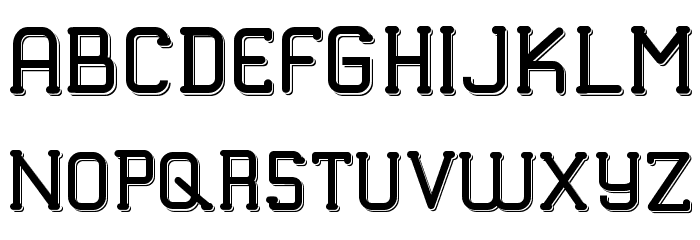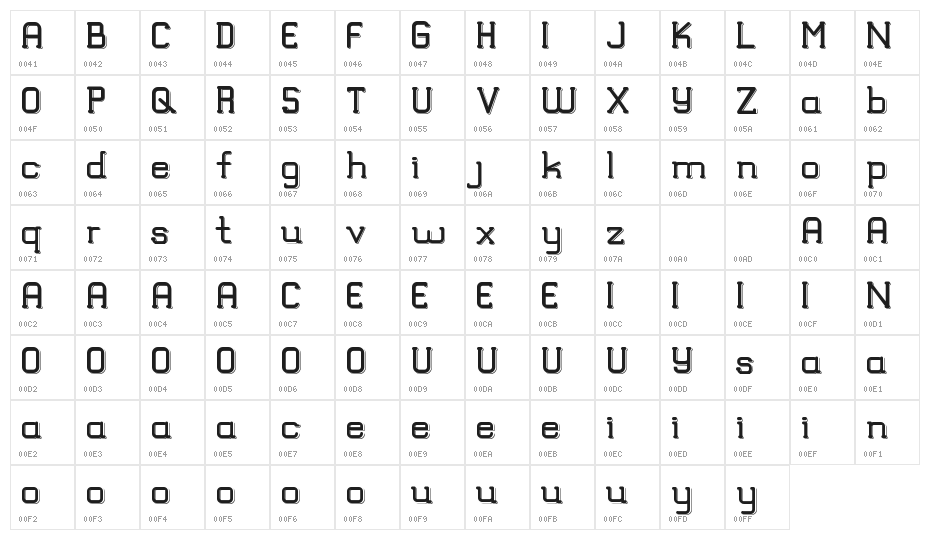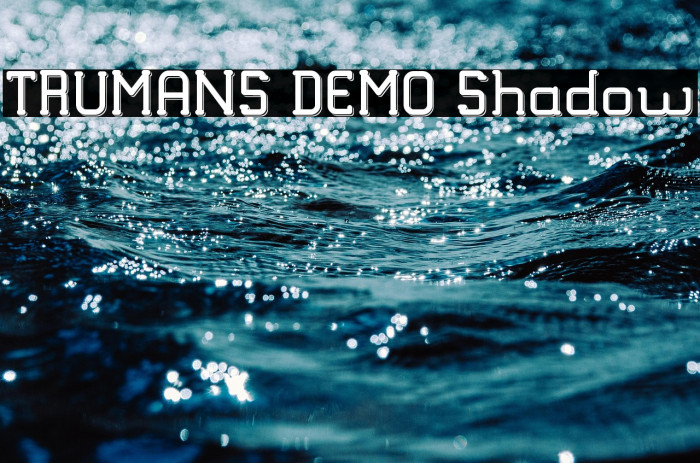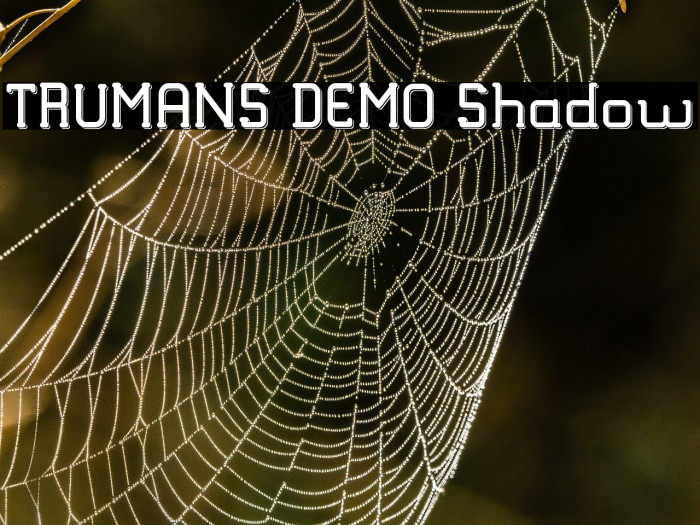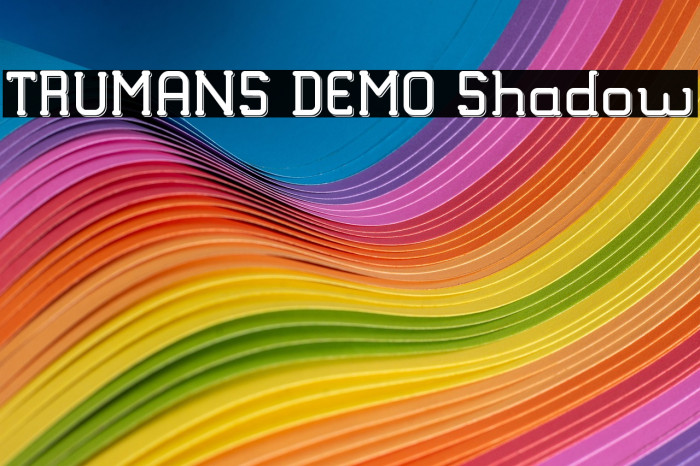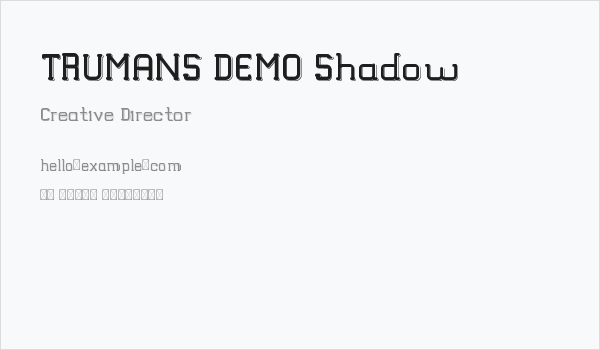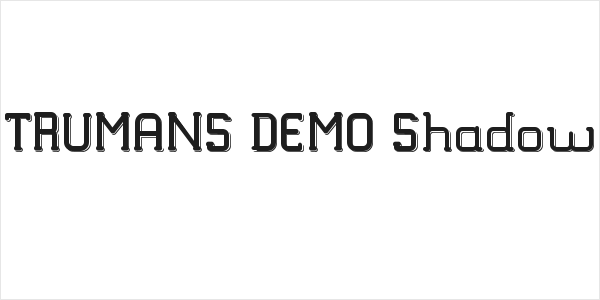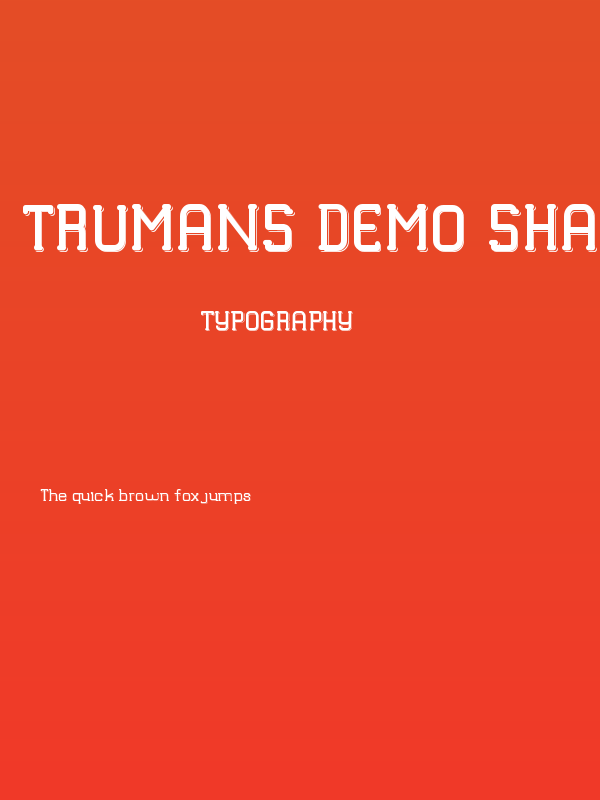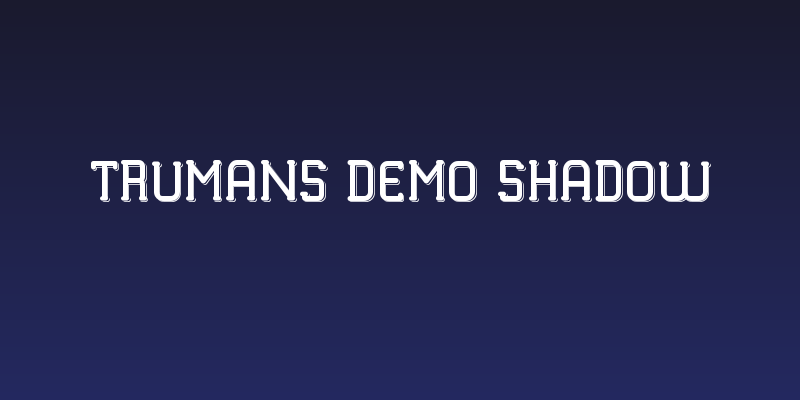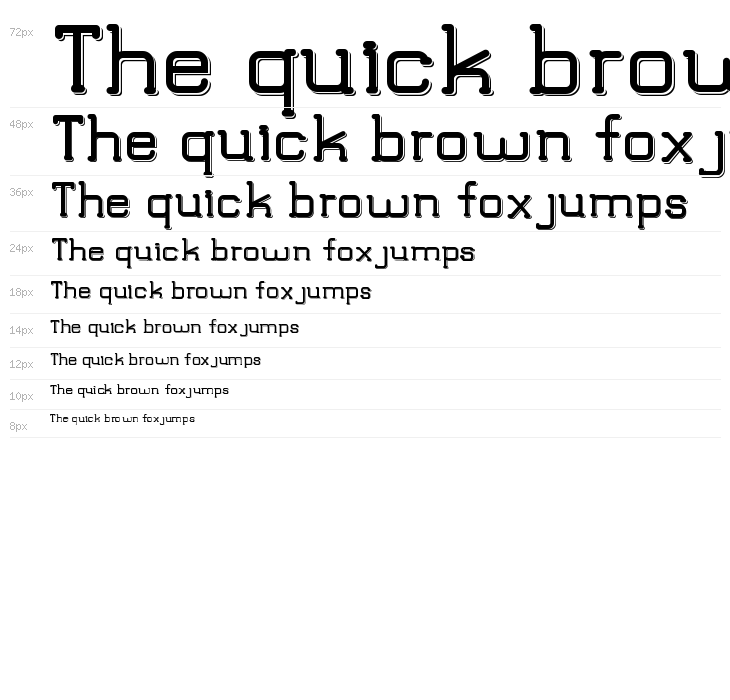
TRUMANS DEMO Shadow Font
TRUMANS DEMO Shadow Description
This font features a bold and striking design with a shadow effect that adds depth and dimension to each character. The uppercase and lowercase letters maintain a consistent style, characterized by clean lines and geometric shapes. The shadow effect gives the font a three-dimensional appearance, making it stand out on any page. The characters are evenly spaced, ensuring readability while maintaining a unique aesthetic. This font is ideal for projects that require a modern and eye-catching typeface, such as posters, headlines, and branding materials. Its bold presence and distinctive style make it suitable for creative and impactful designs.
Proposed ProjectsIdeal for posters, headlines, branding, and creative design projects.